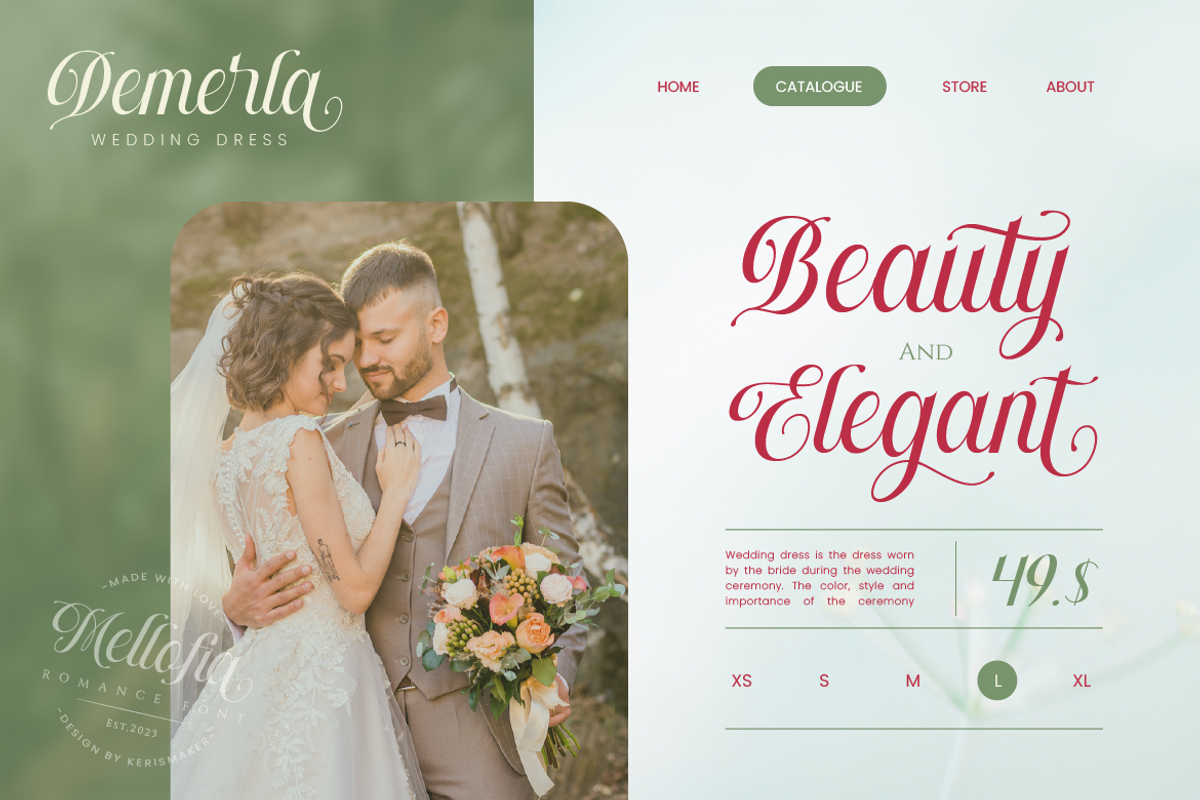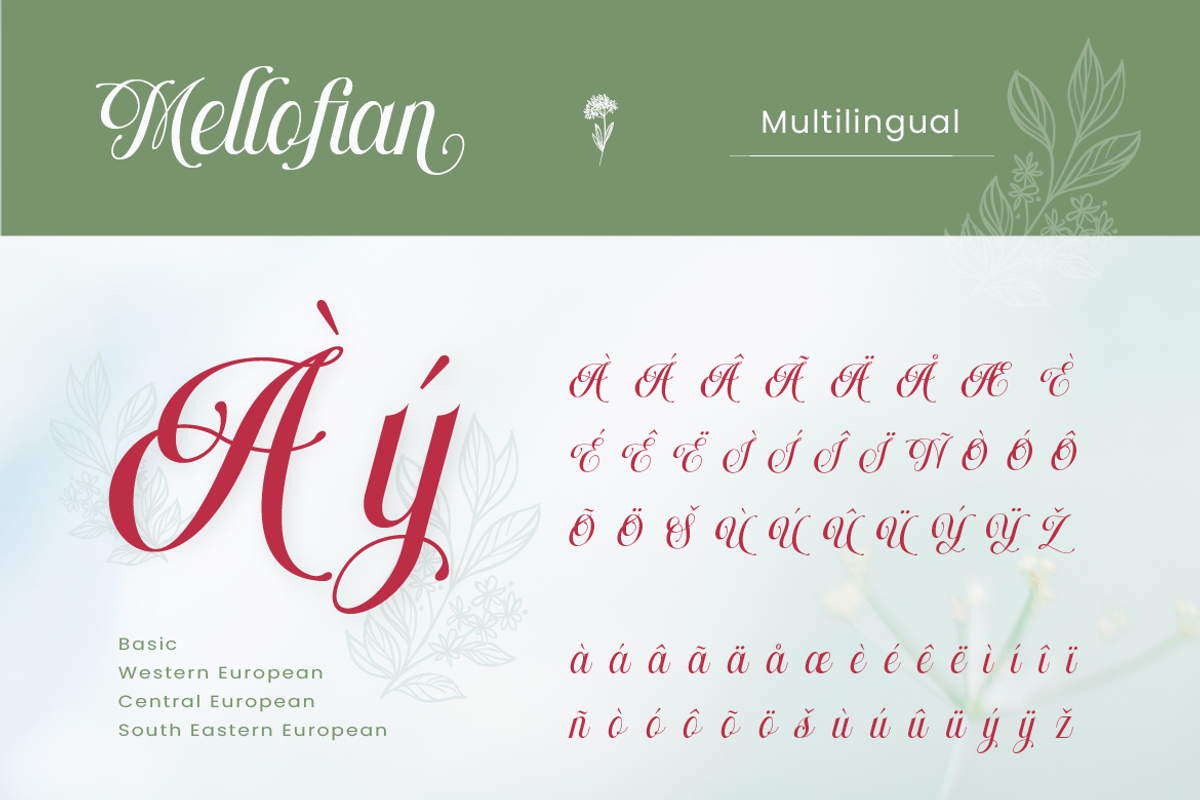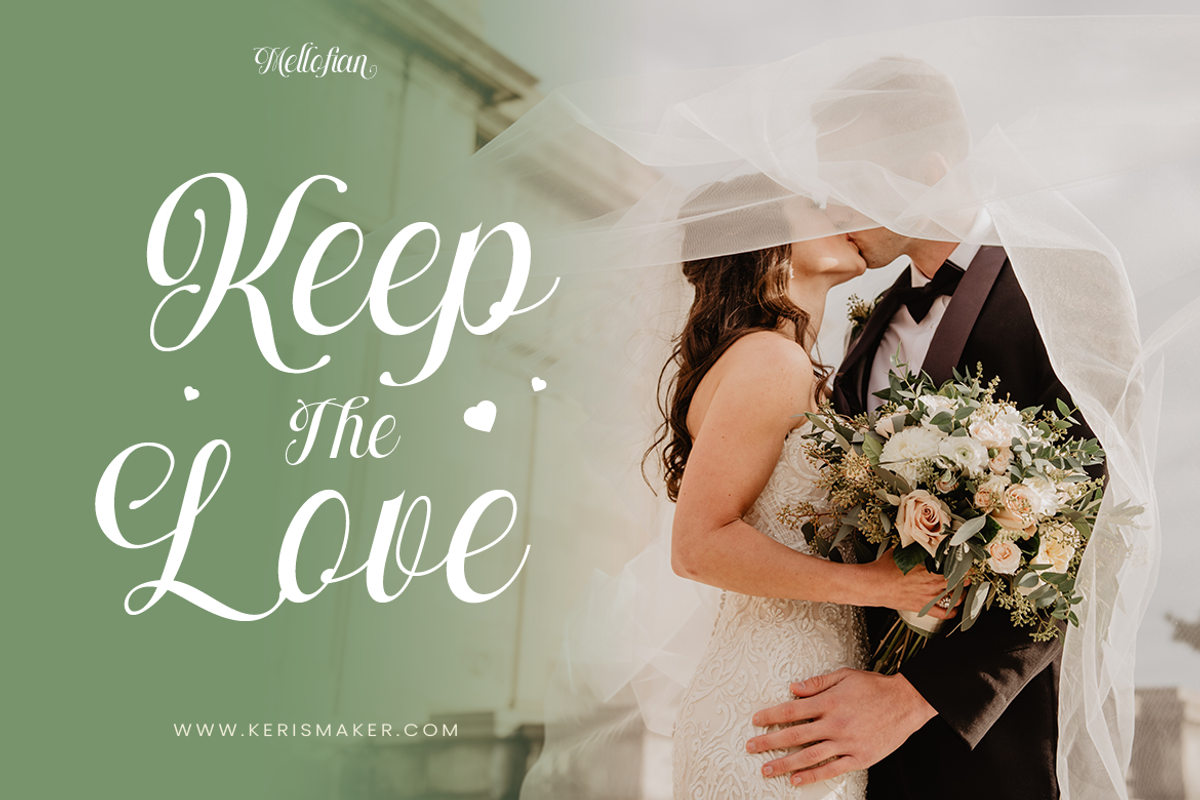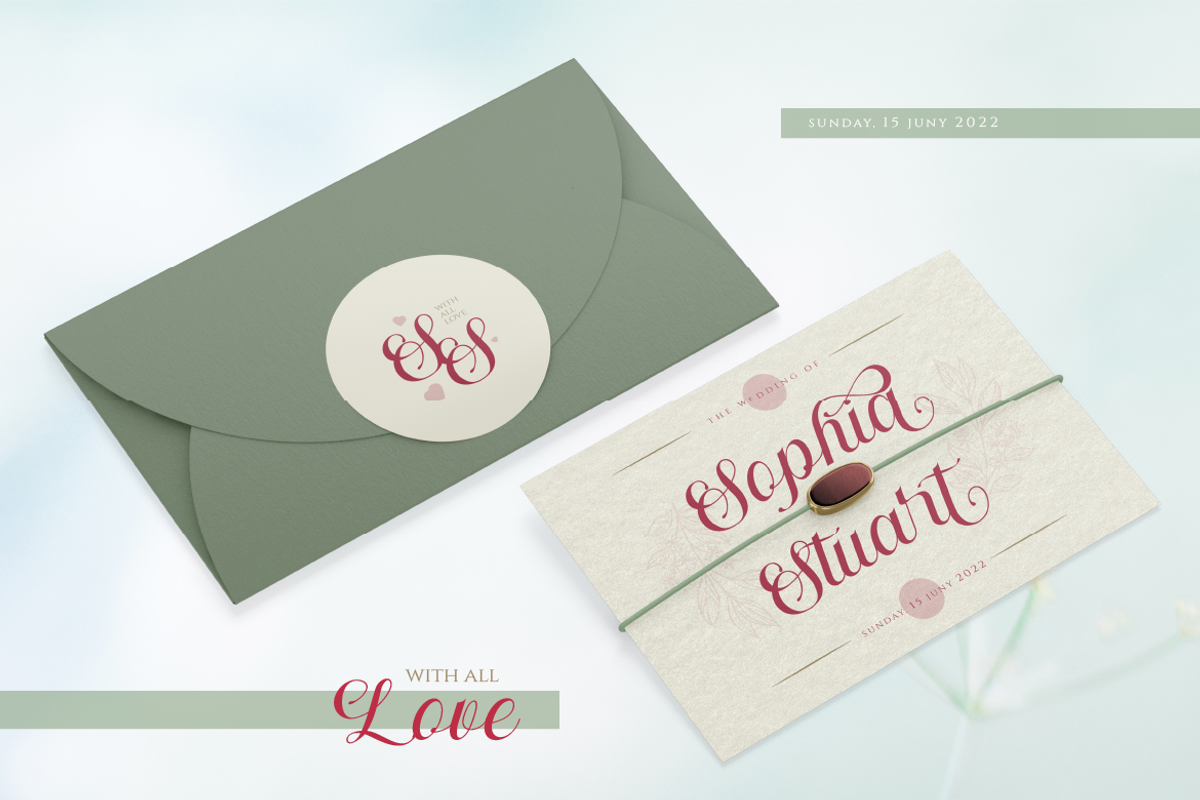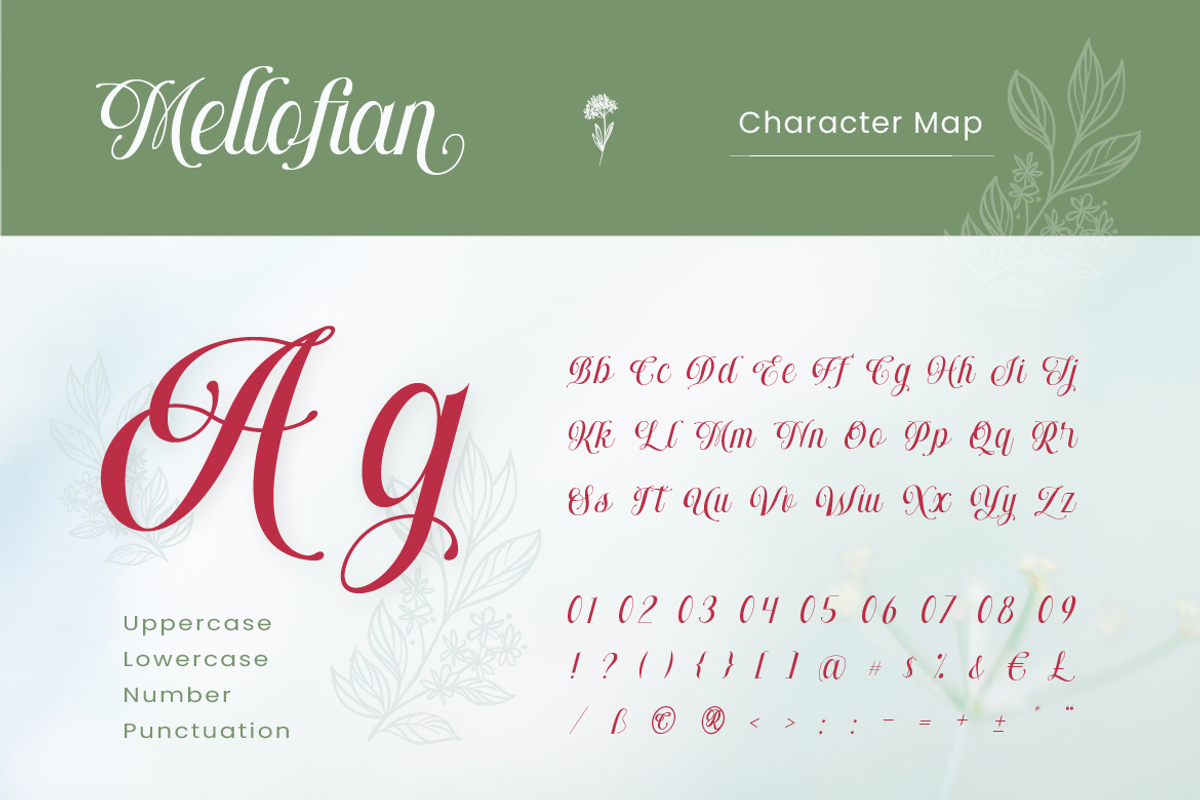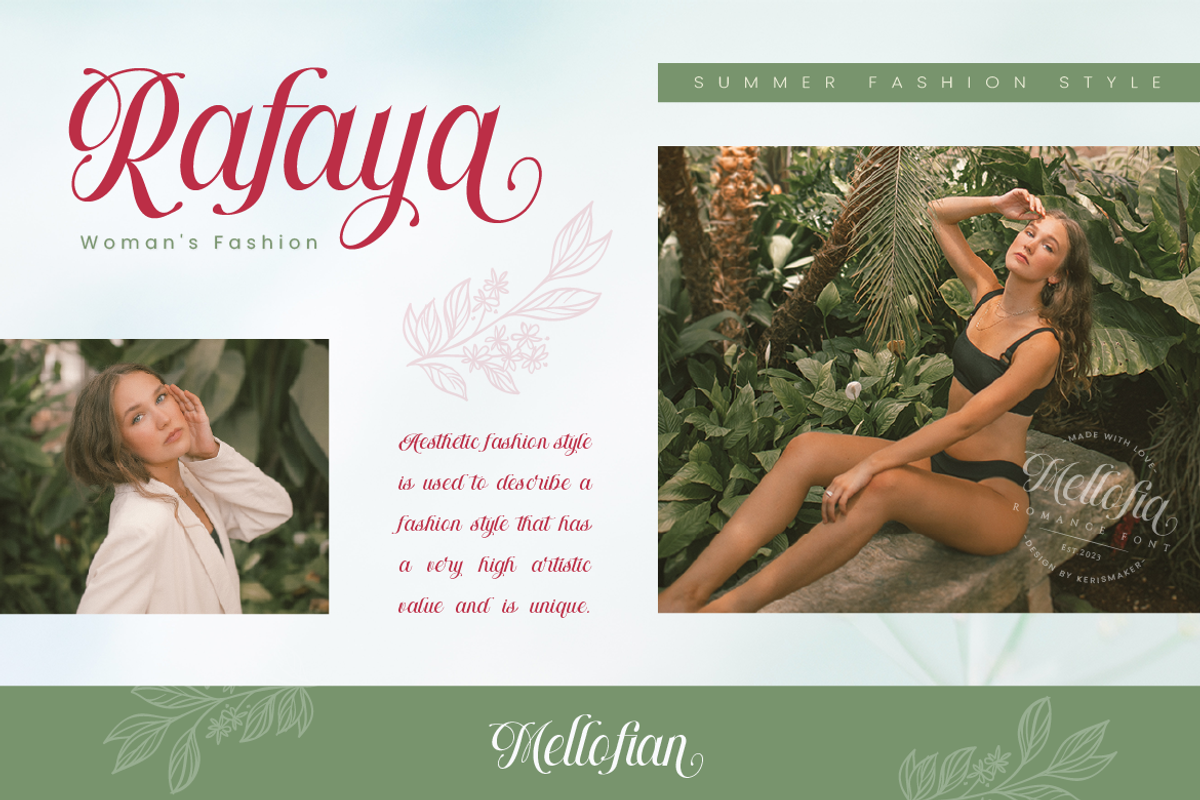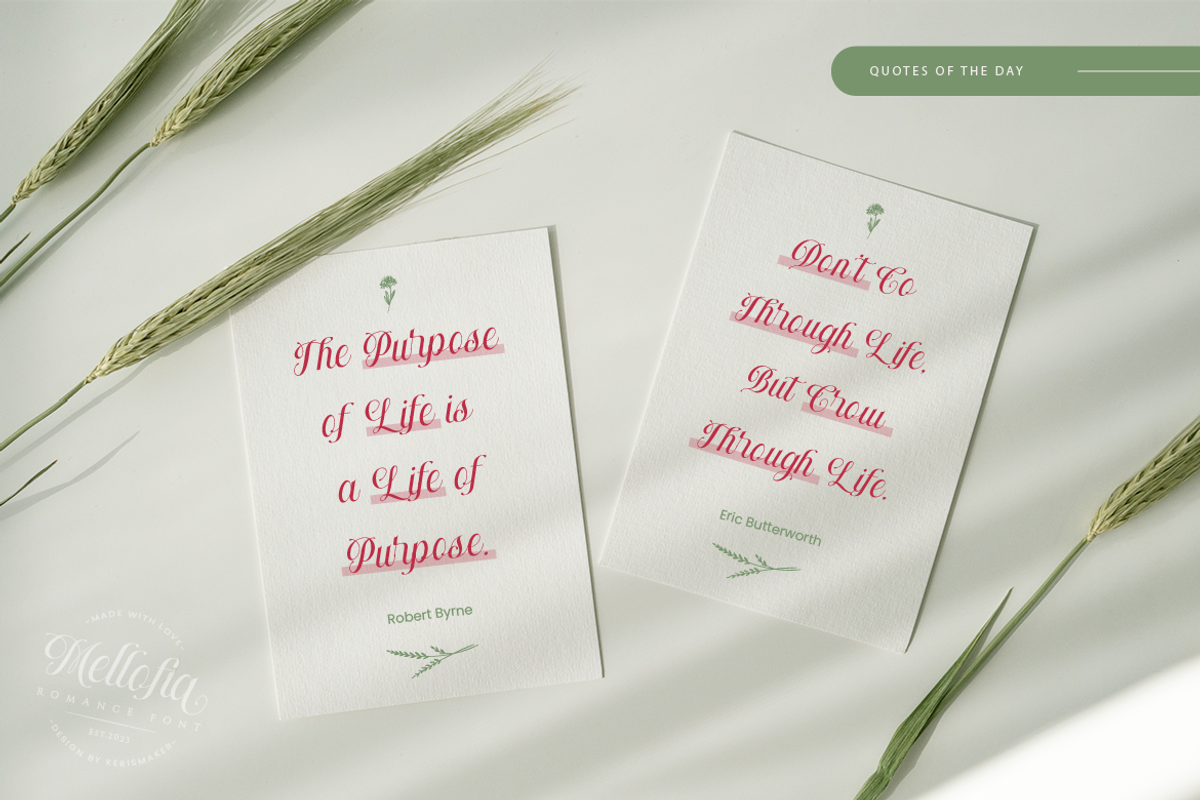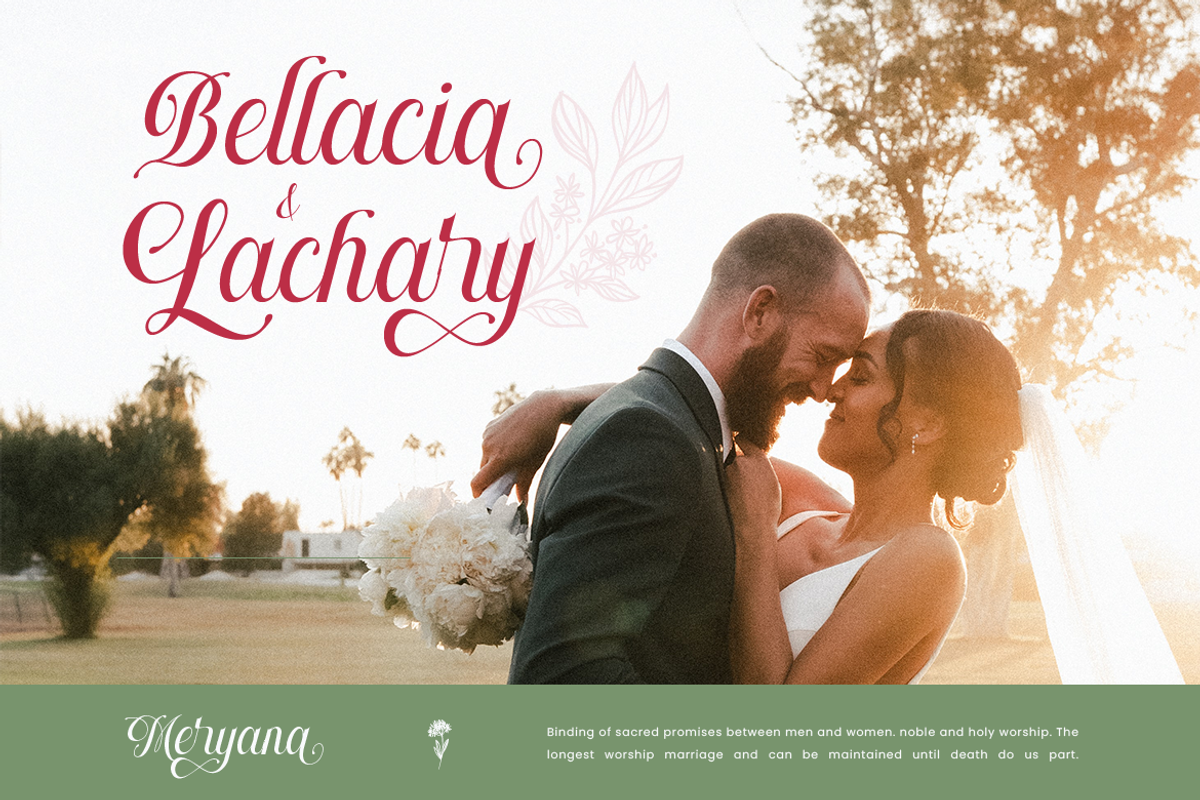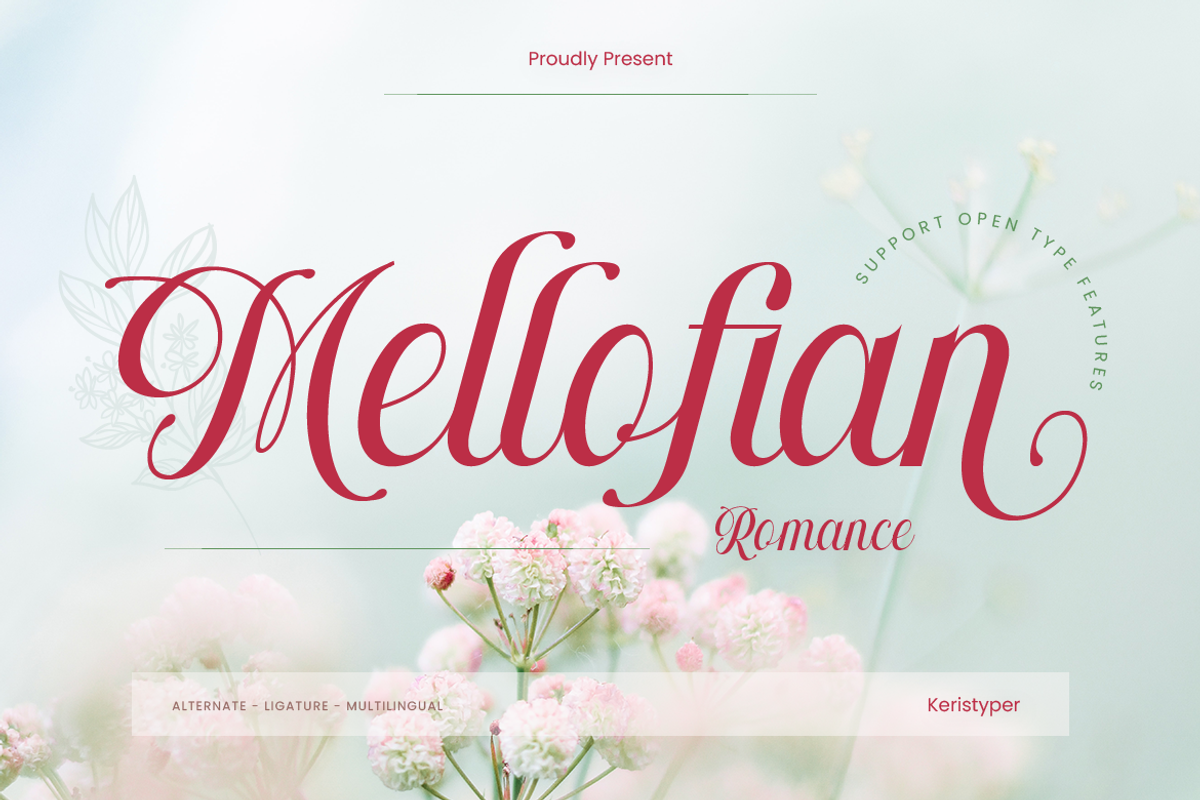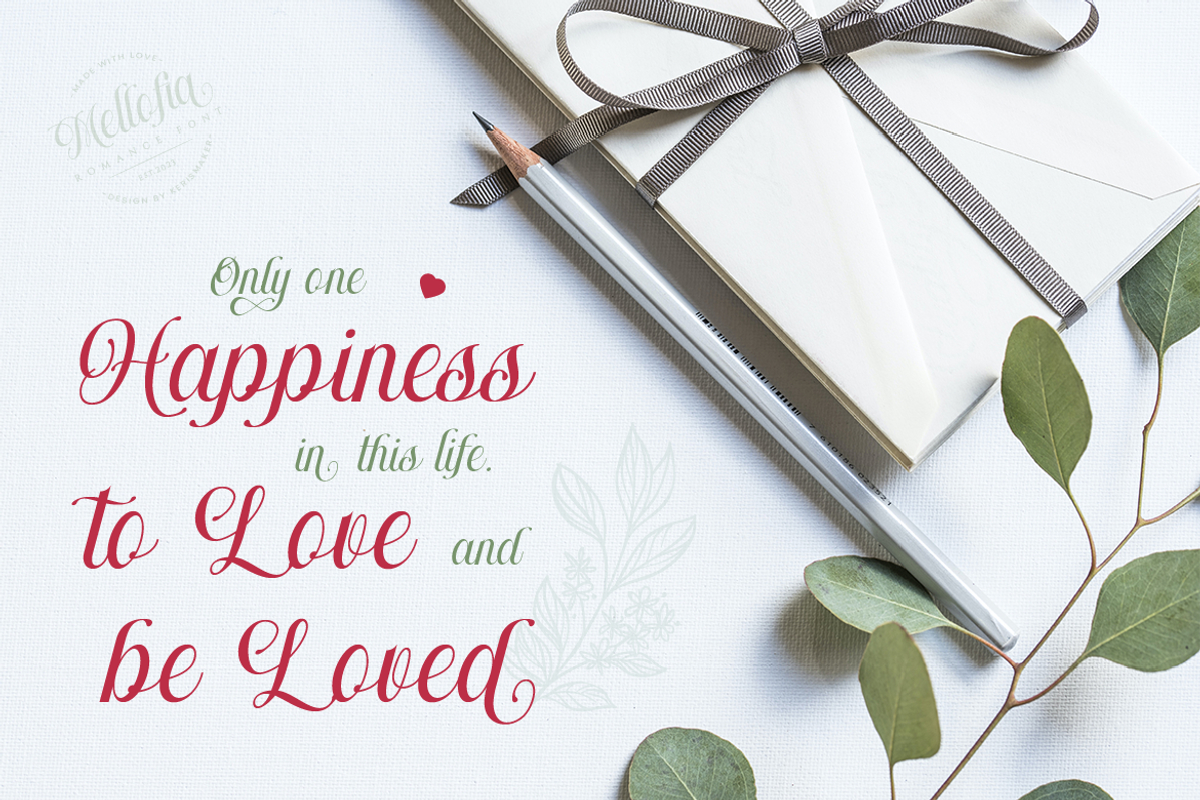
Mellofian
Proudly present Mellofian a romantic script font Inspired by drama and love stories. This font is good for logo design, Social media, Movie Titles, Books Titles, short text even long text letters, and good for your secondary text font with the script, sans, or serif.
- Standard Uppercase & Lowercase
- Multilingual : ä ö ü Ä Ö Ü ß ¿ ¡
- Alternate & Ligature